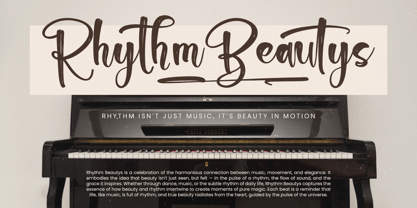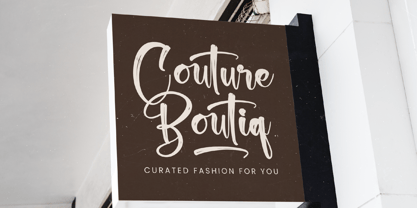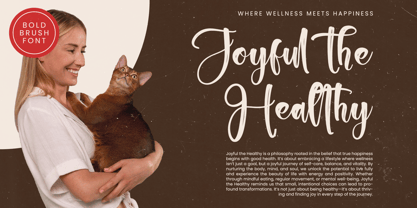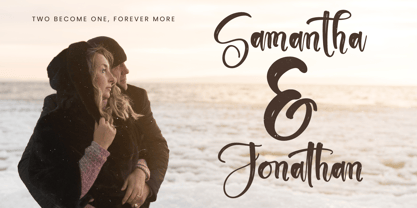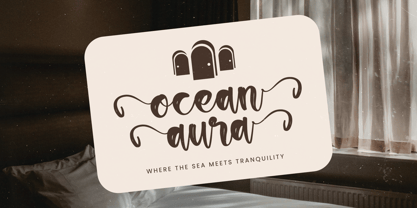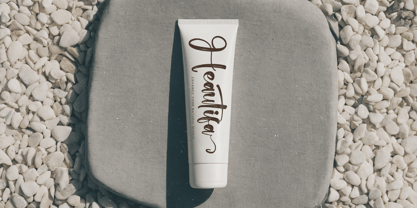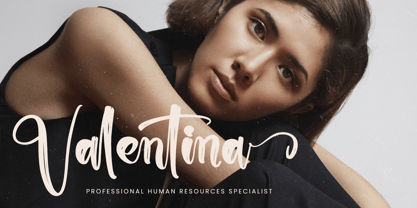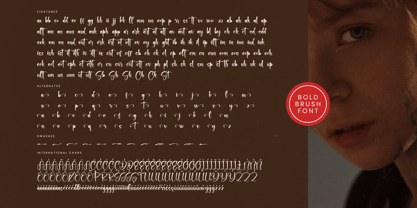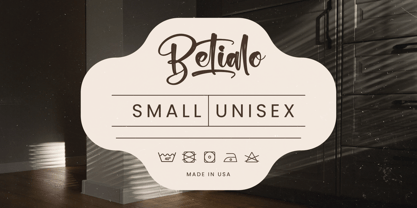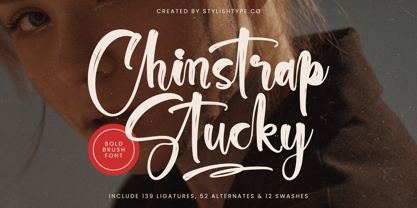
Chinstrap Stucky
by Stylishtype Studio
The Chinstrap Stucky Font Family was designed by Heru Utama Putra and published by Stylishtype Studio. Chinstrap Stucky contains 2 styles and family package options. More about this family
Chinstrap Stucky - Bold Brush Font , from Stylishtype, Suitable for any projects such as: logos, branding projects, homeware designs, product packaging, mugs, quotes, posters, shopping bags, t-shirts, book covers, name card, invitation cards, greeting cards, label, photography, watermark, special events, and all your other luxury and beautiful projects that need a Luxury Script taste.
Chinstrap Stucky